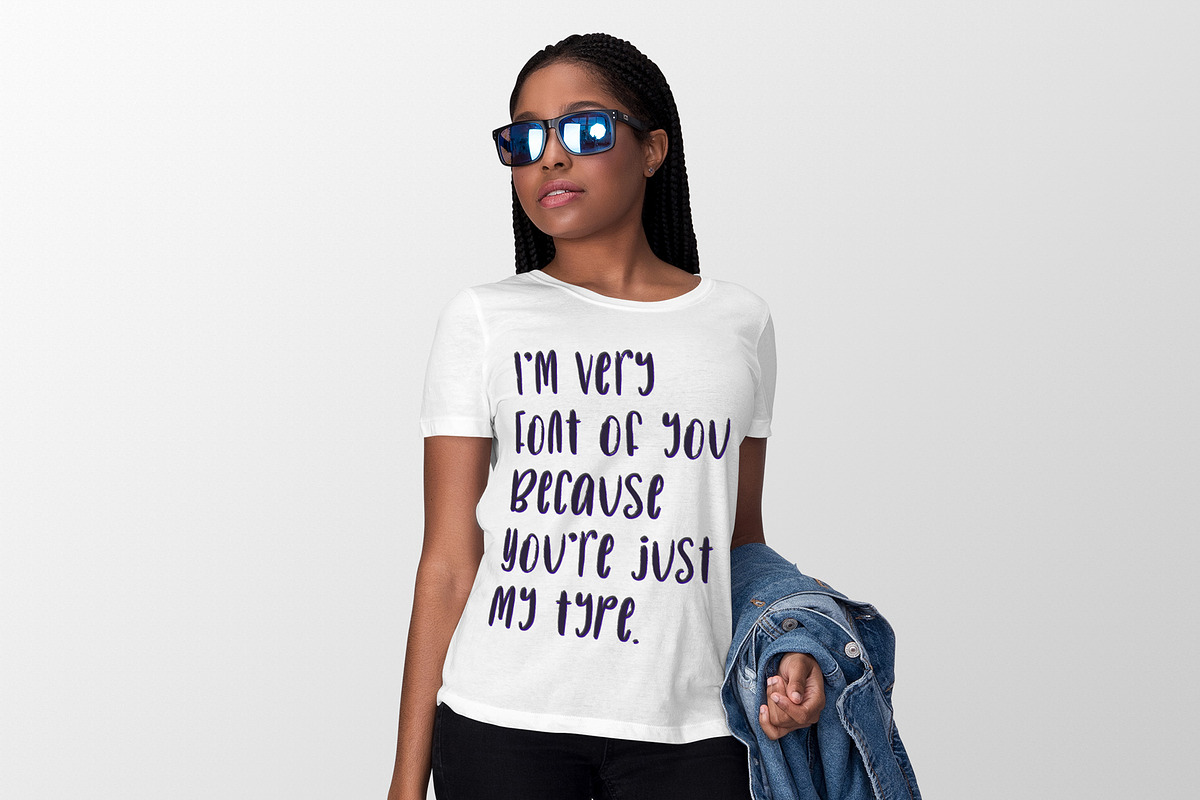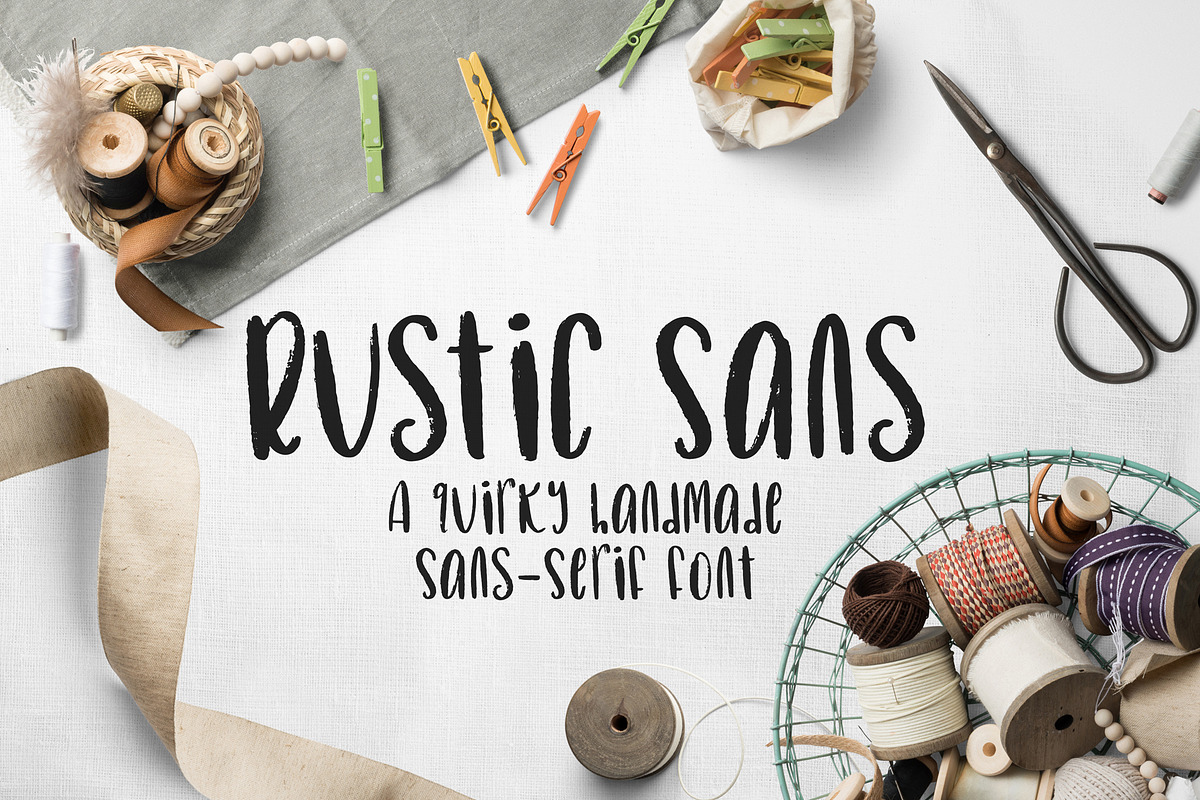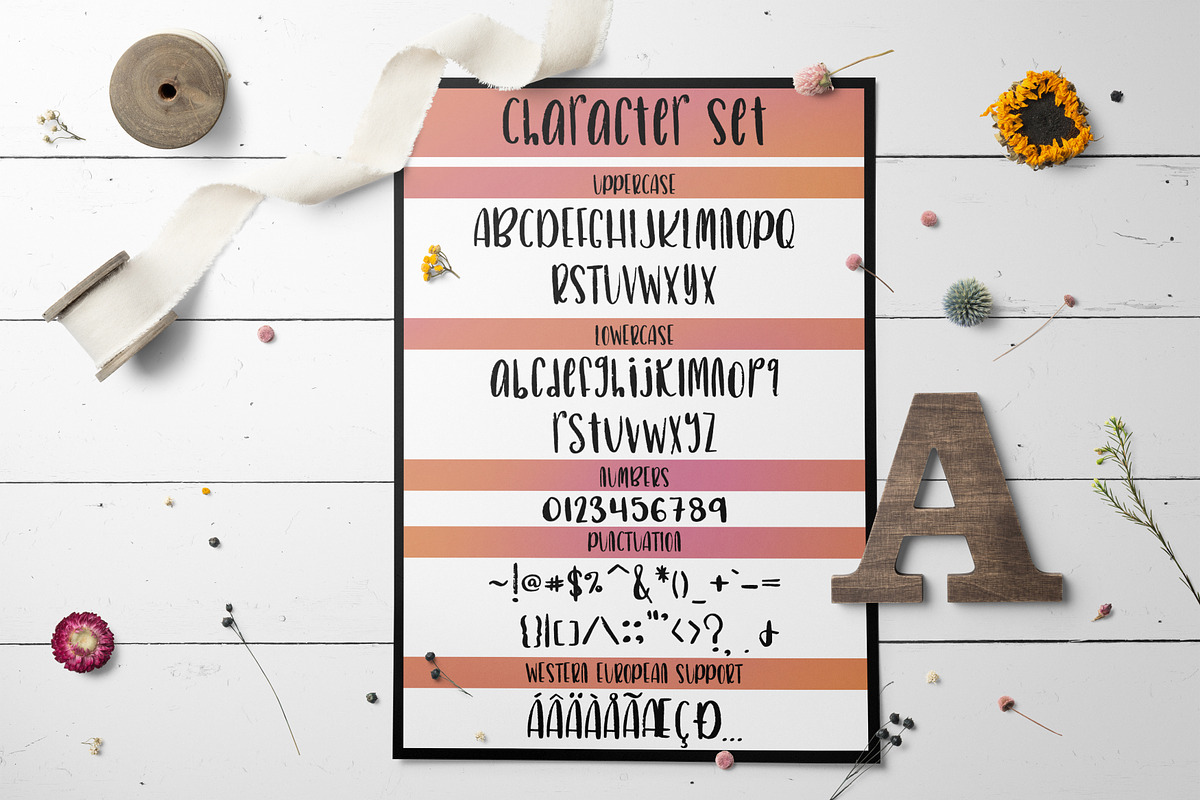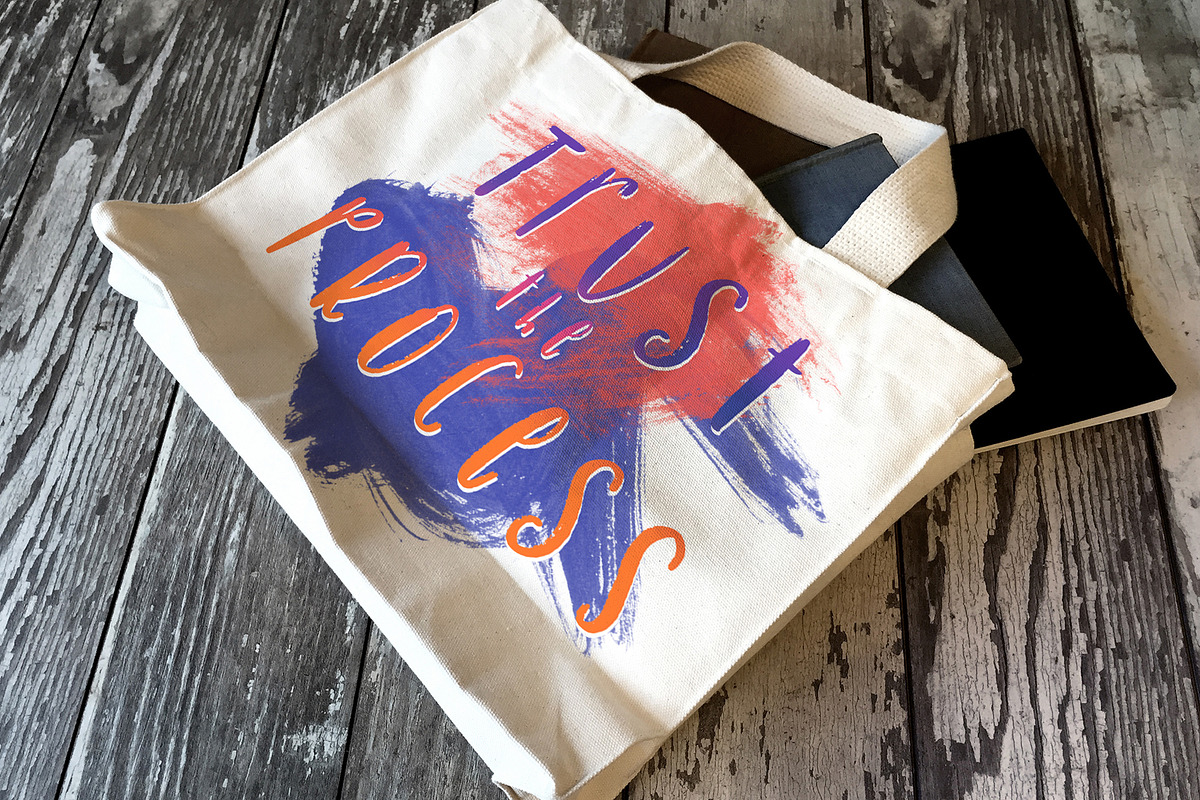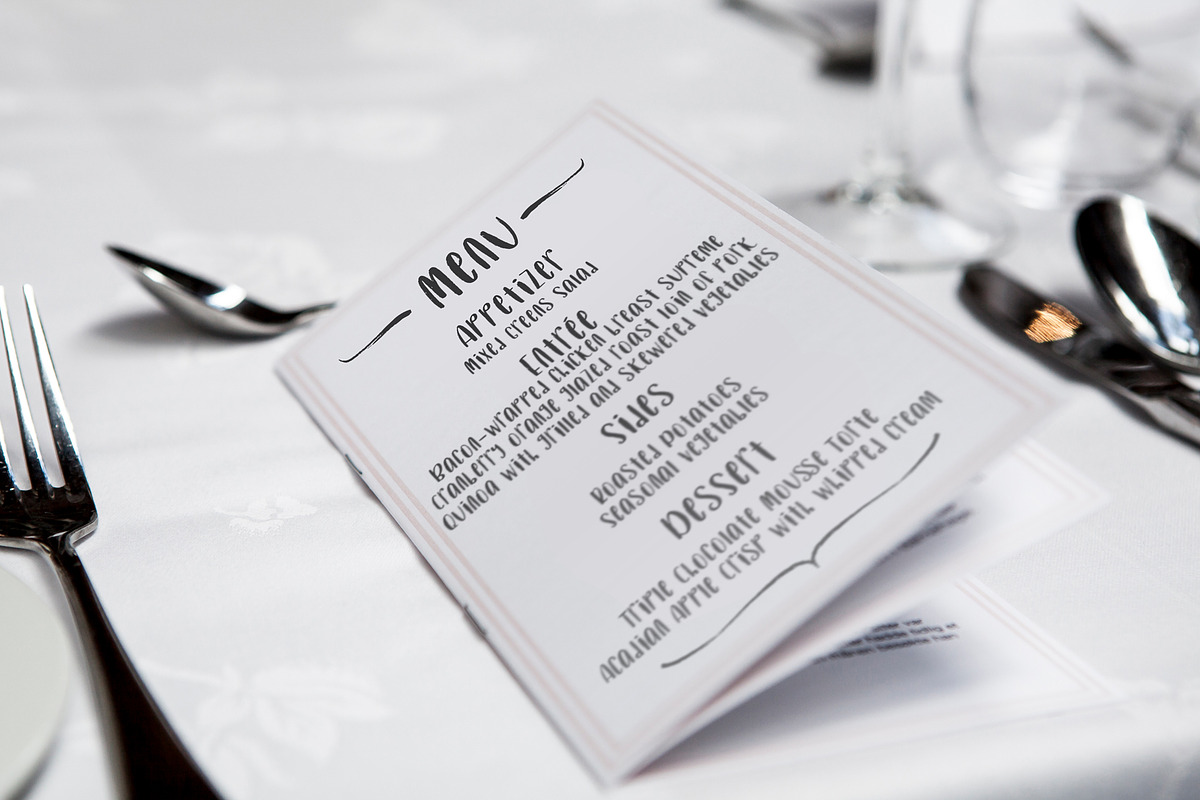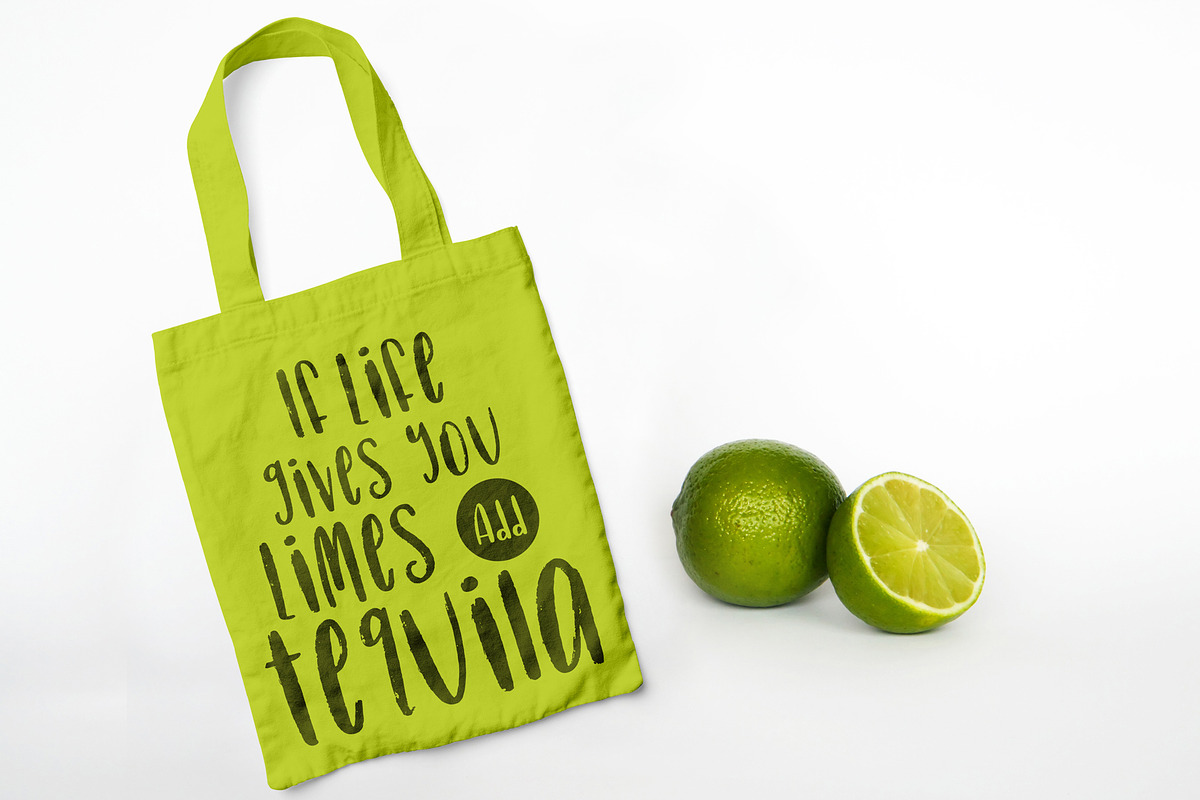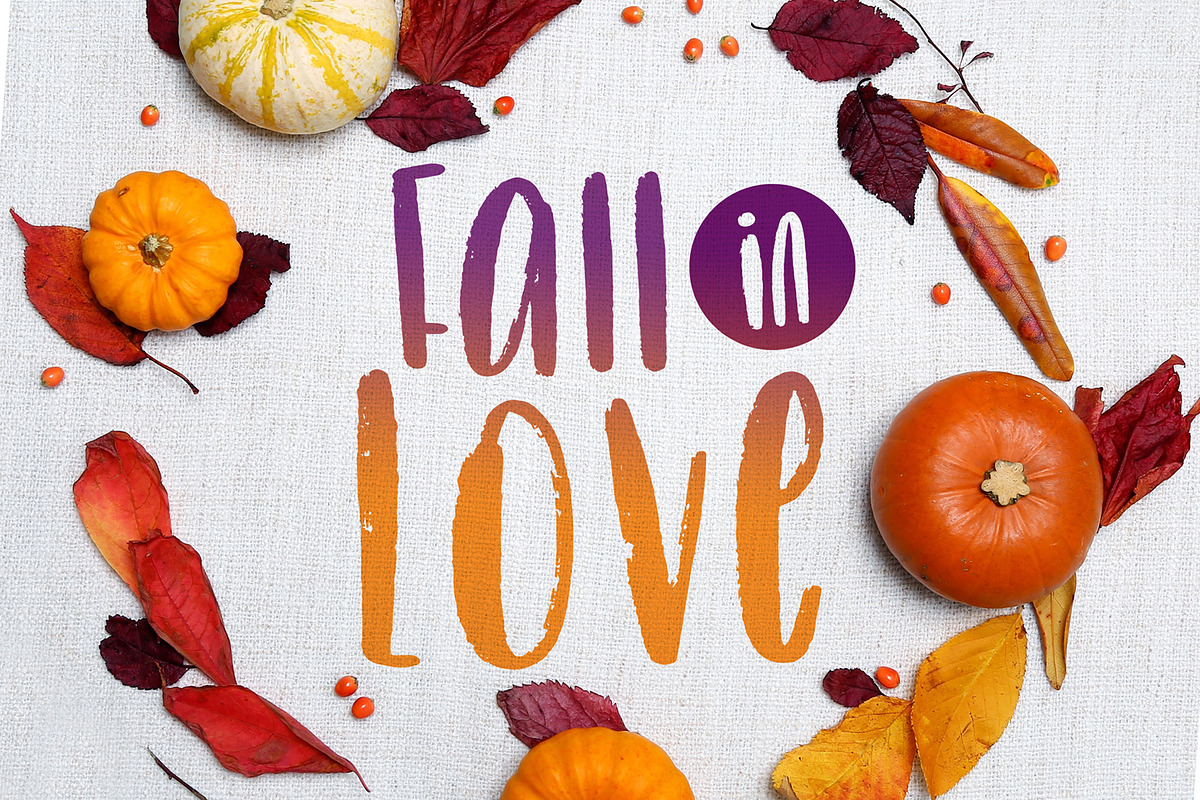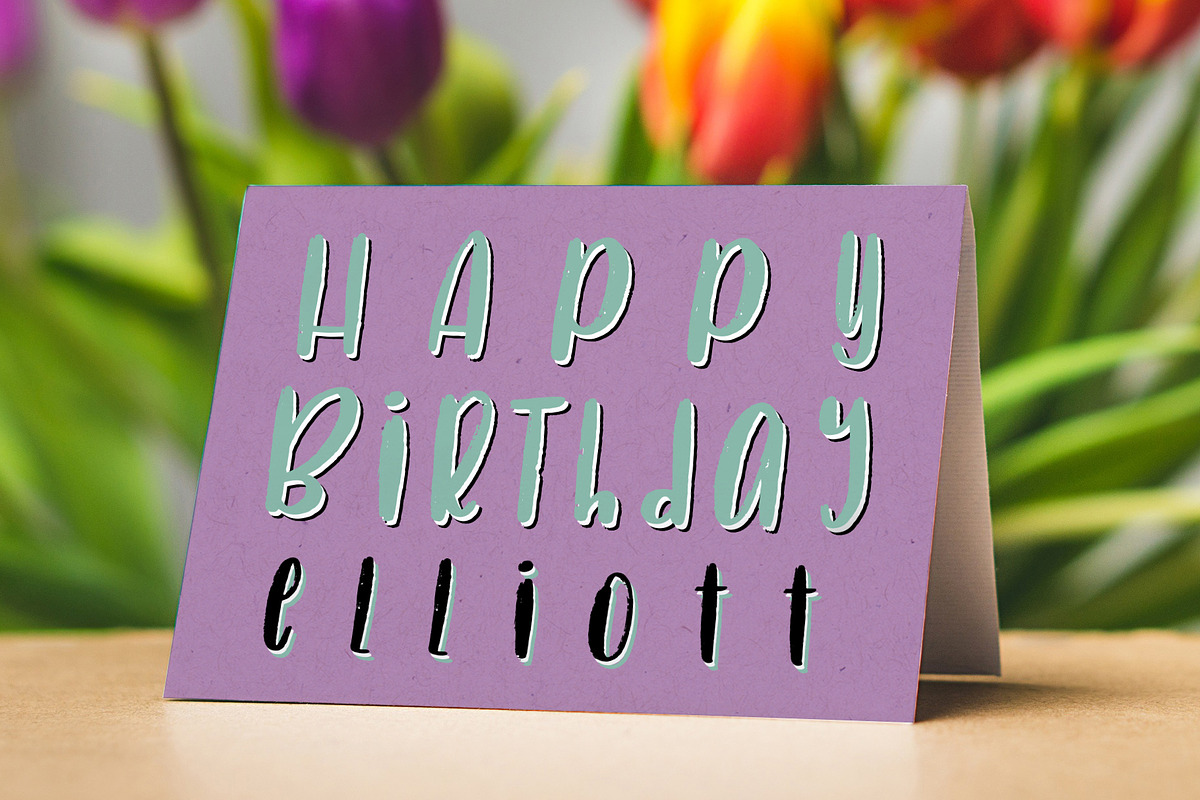
Rustic Sans
Rustic Sans is a handmade sans-serif type with a quirky attitude.
Mix-up caps & lowercase letters to add pizazz to your greeting cards, invitations, social media posts, prints and more!
Multilingual support is included for Western European languages. Please test your characters in the font previewer below before purchase.
Rustic Sans also includes 3 coded features to provide stylistic alternates: 1 alternate ampersand, and an additional period/decimal and comma (to use with the numbers, they are shorter).